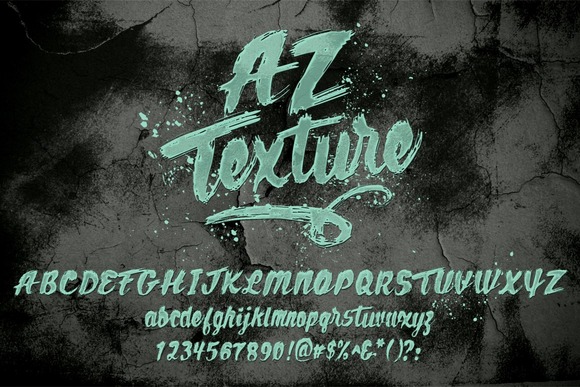
AZ Texture Font
Journey into the realm of typography with AZ Texture Font, a brushed handwritten script that captures the essence of individuality. This font family, meticulously crafted by Artistofdesign, offers an exquisite blend of artistry and practicality. Dive into a world where every letter dances upon the page, swaying with a rhythm that echoes the heartbeat of passion. Unleash your creativity and paint your words with the grace and elegance of AZ Texture Font.
Indulge in the sensory delight of AZ Texture Font's delicate strokes, each line whispering a tale of authenticity and charm. Its organic curves and playful flourishes evoke a sense of nostalgia, transporting you back in time to an era of handwritten letters and heartfelt messages. With AZ Texture Font, your designs will exude a touch of timeless beauty that resonates deeply with your audience.
AZ Texture Font's versatility knows no bounds, making it the perfect companion for a multitude of creative projects. Whether you're designing logos that demand attention, crafting invitations that ooze sophistication, or creating social media posts that captivate and engage, AZ Texture Font will elevate your designs to new heights. Its effortless flow and captivating aesthetics will leave a lasting impression that lingers in the minds of your viewers.
Embrace the power of self-expression with AZ Texture Font. Let your passions and ideas flow freely onto the page, adorned with the unique charm of this exceptional font. Whether you're a seasoned designer or just starting your creative journey, AZ Texture Font will guide you along the path of artistic excellence, inspiring you to create designs that speak directly to the heart.
Don't settle for ordinary fonts that fade into the background. Dare to be different, to make a statement with your designs. Choose AZ Texture Font and embark on a creative adventure that will transform your ordinary words into extraordinary works of art.